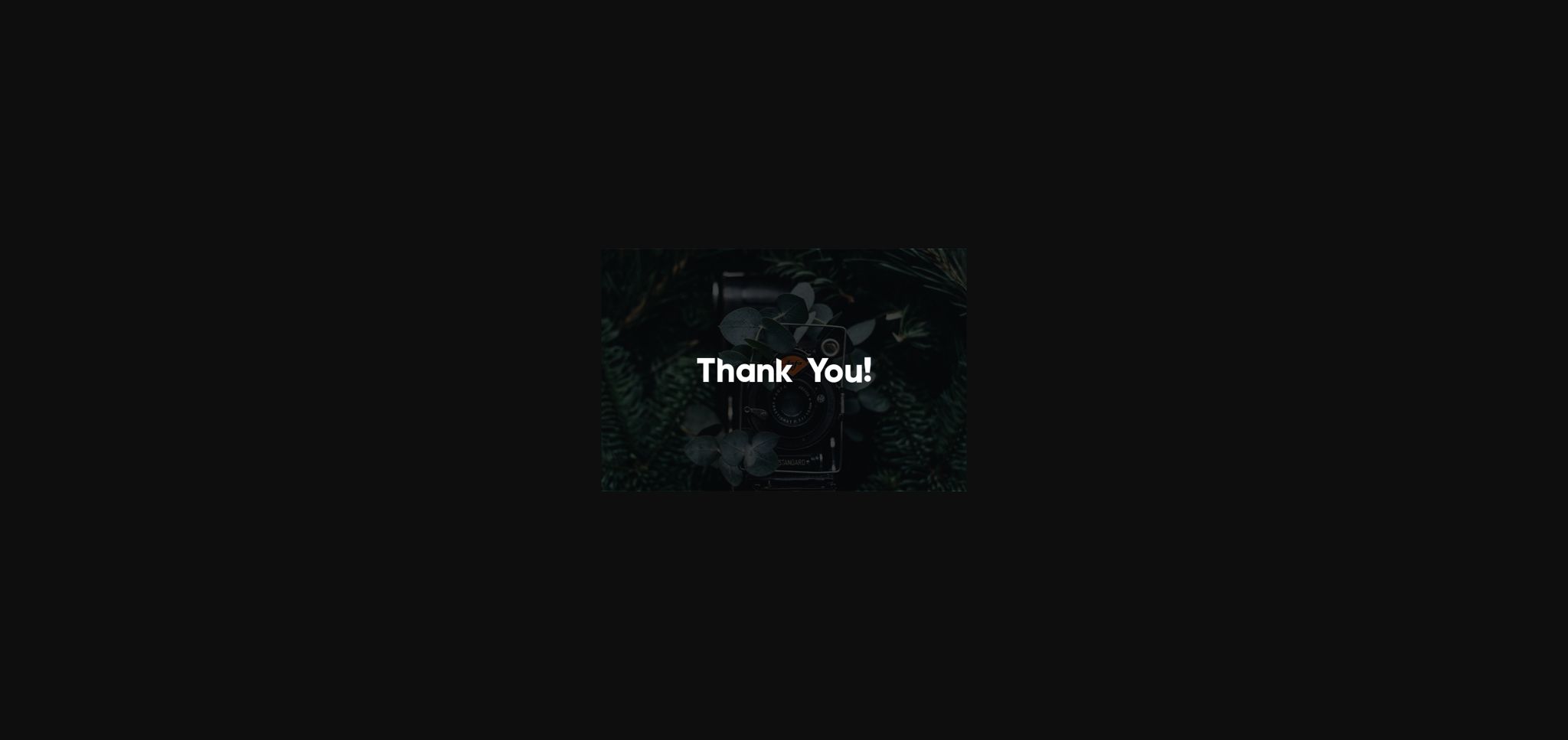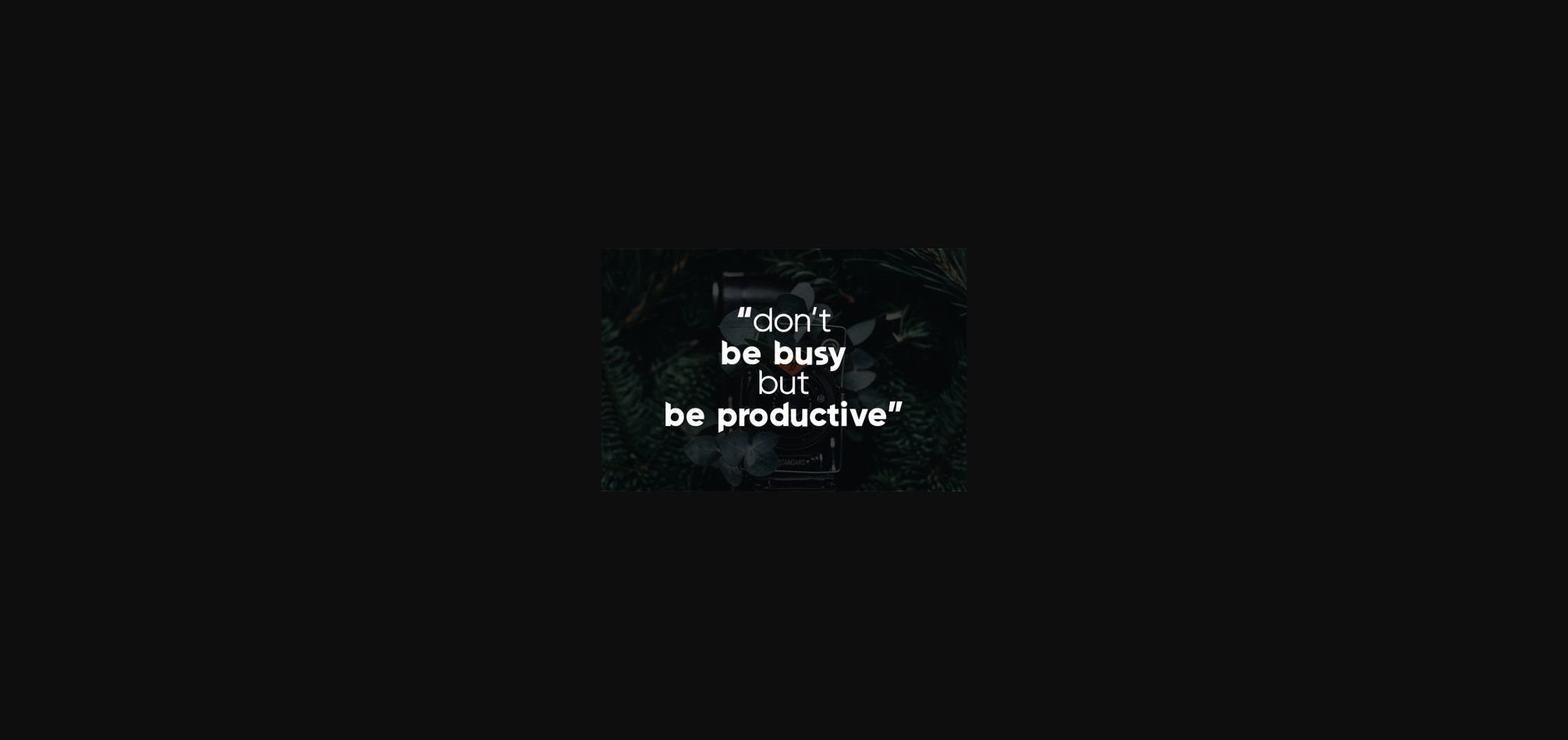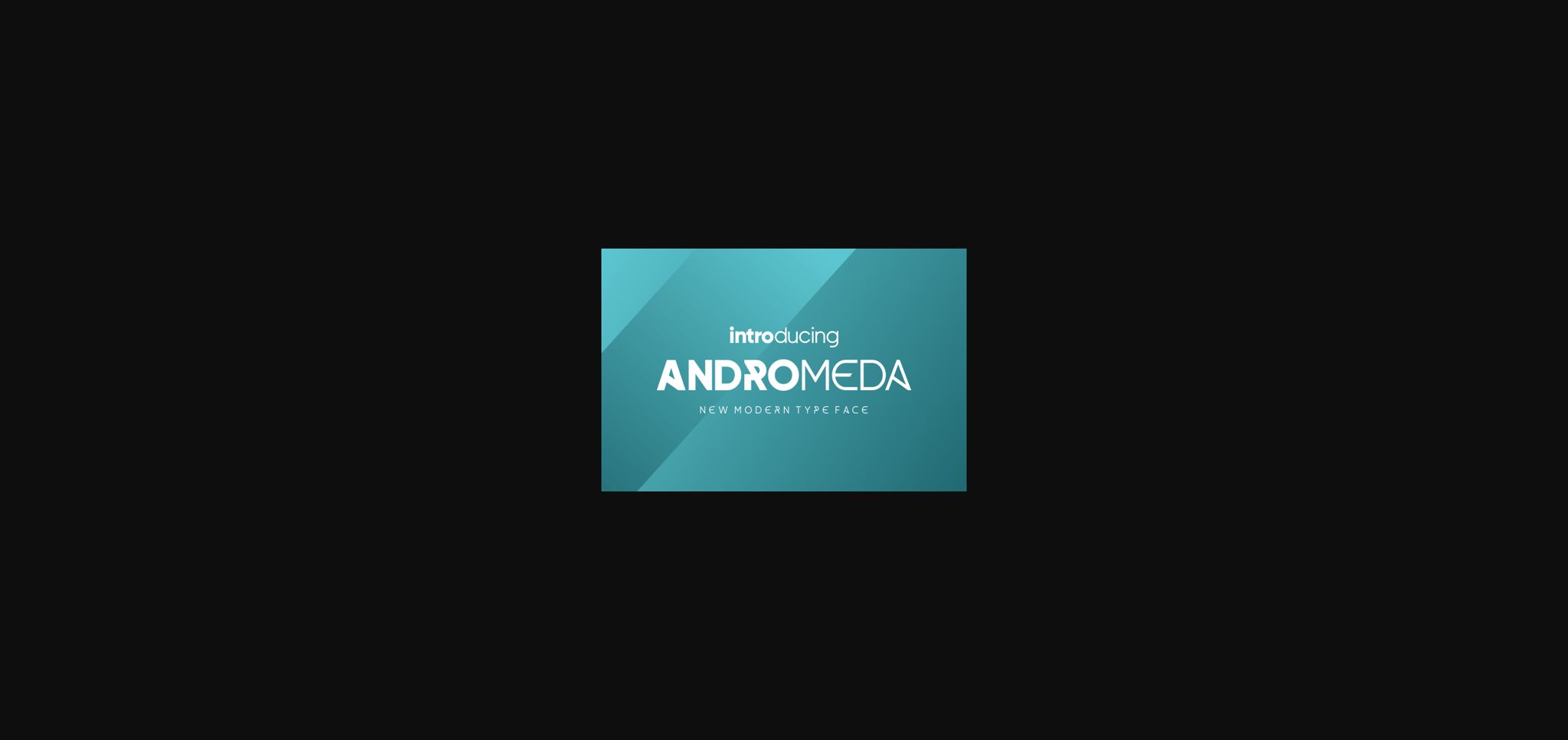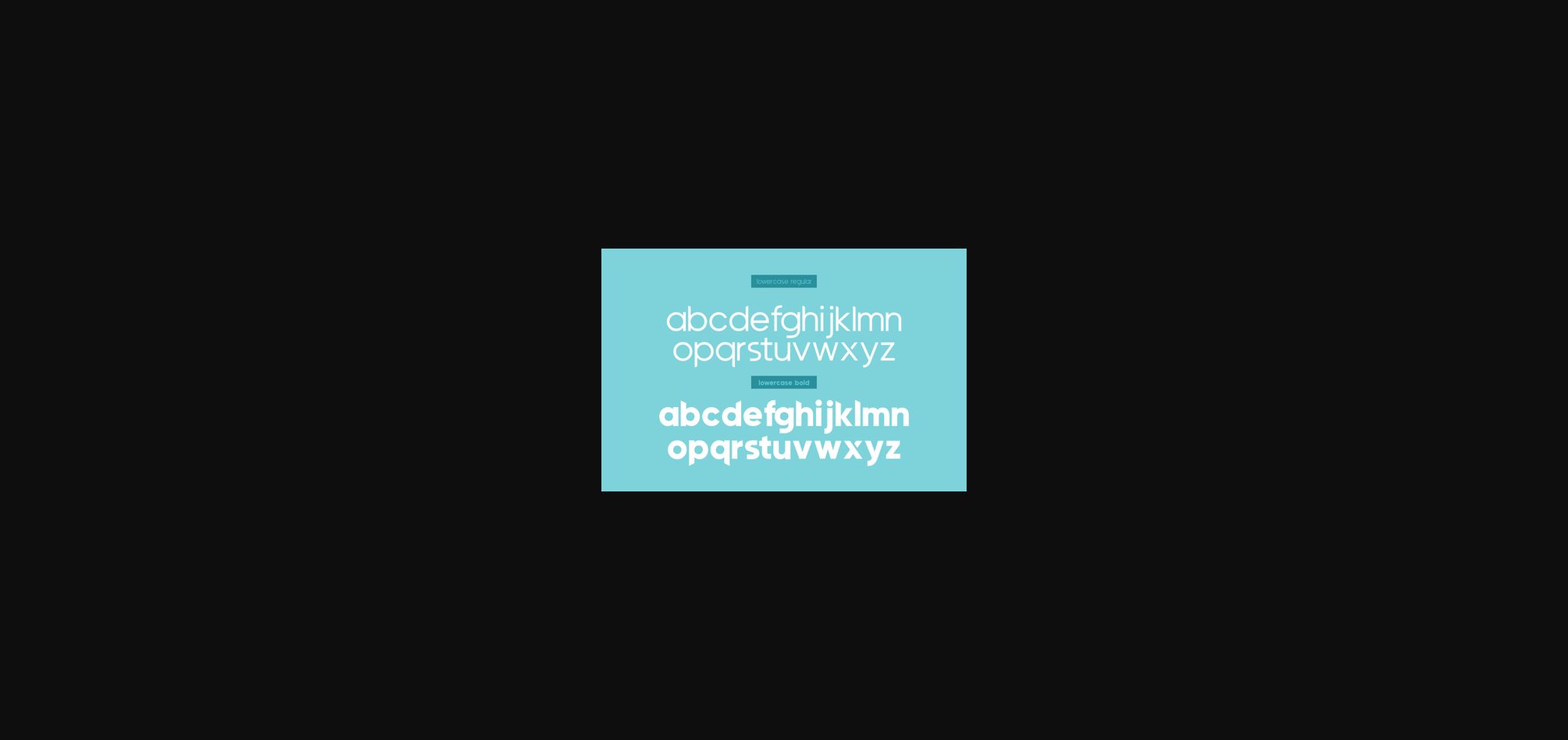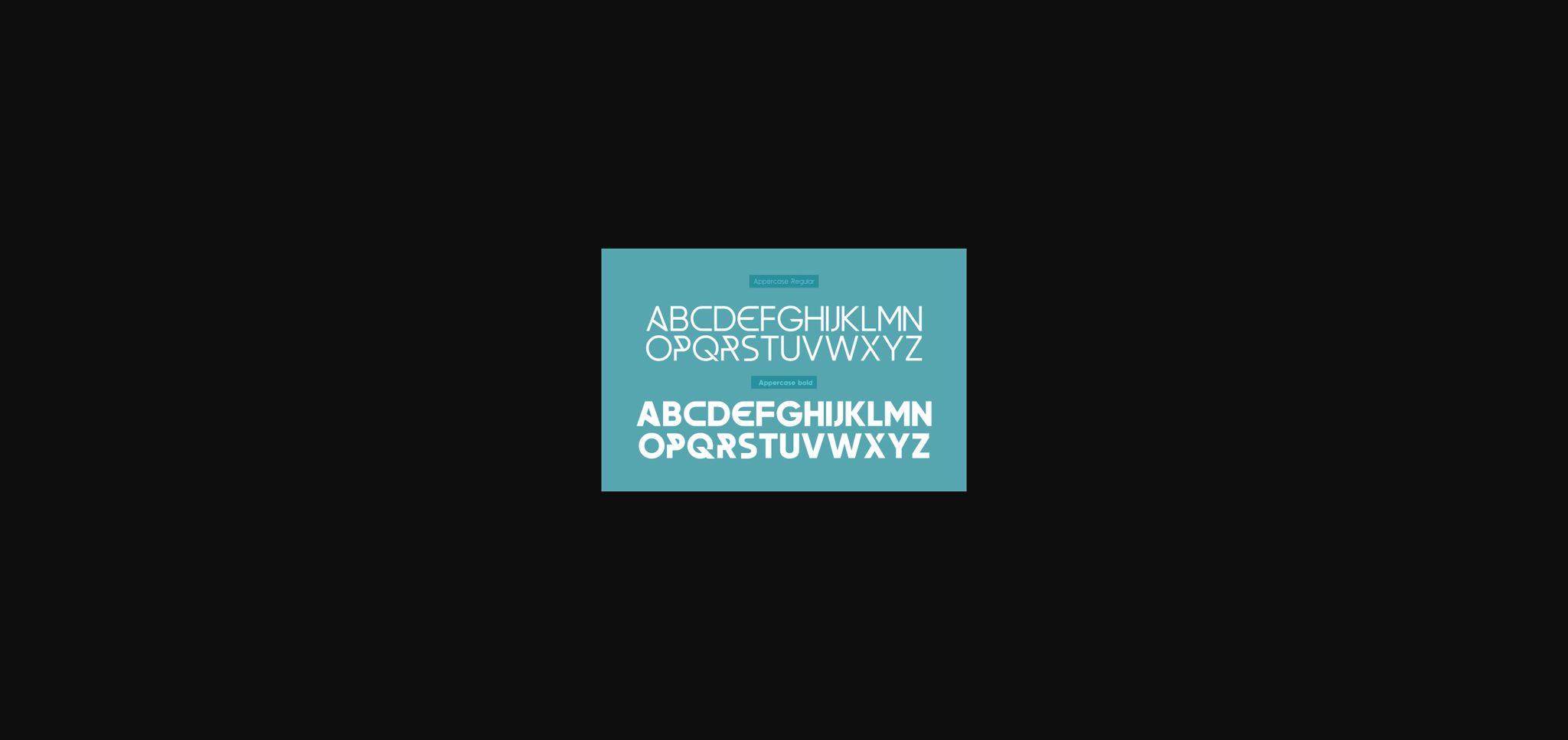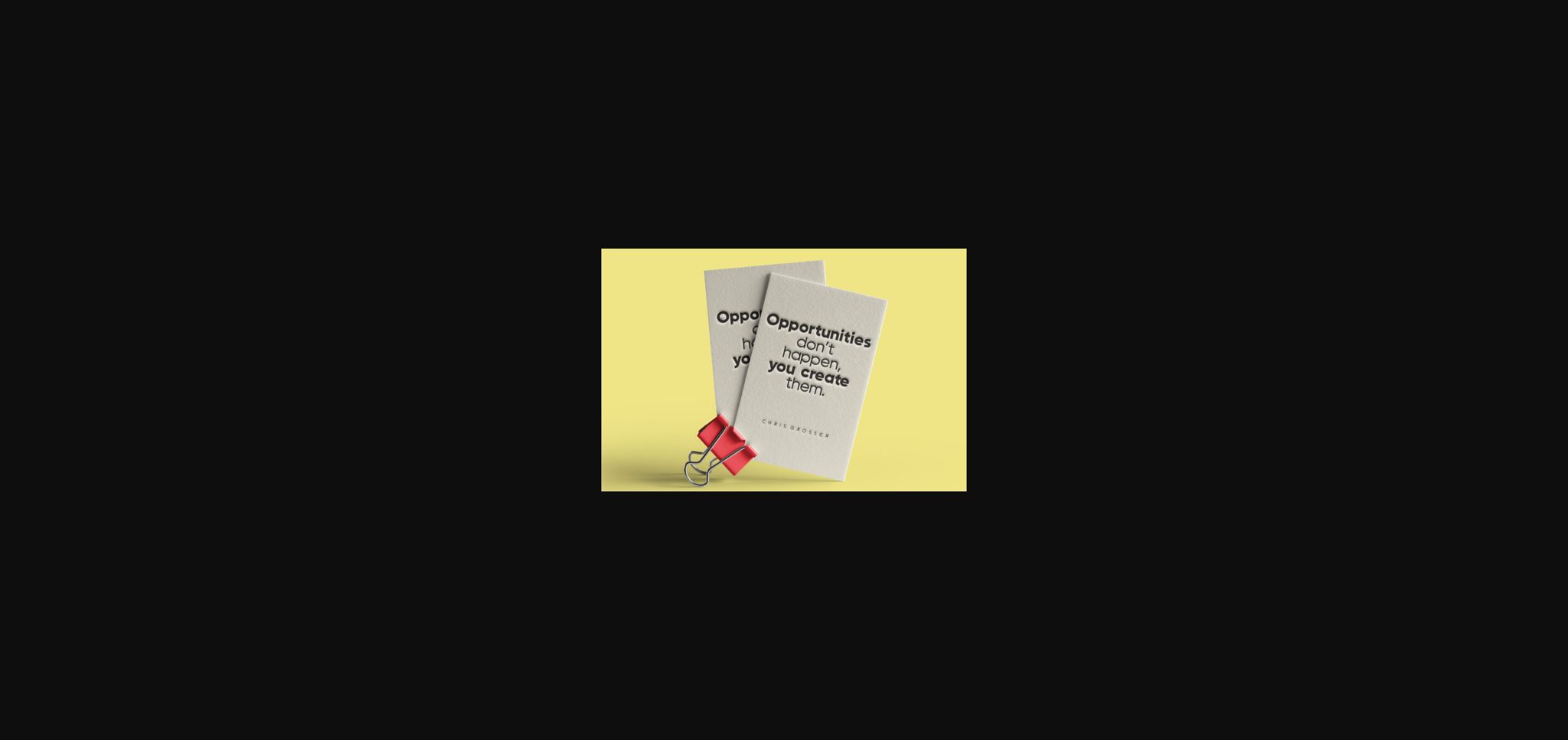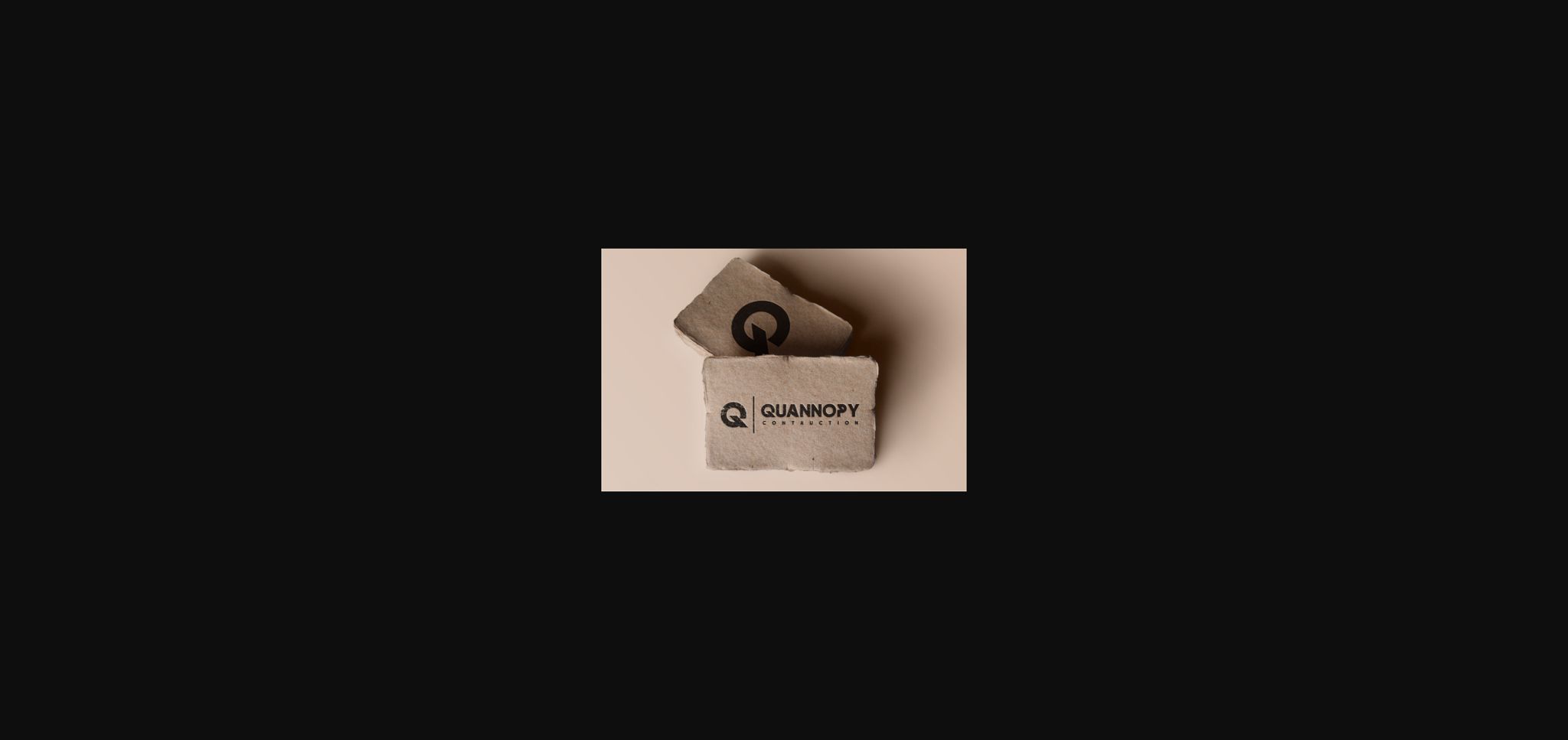
HomeSans Serif FontsAndromeda Font Sans Serif Fonts Andromeda Font FacebookXPinterestWhatsApp 1 of 10 ... Andromeda Font Poster 2... Andromeda Font Poster 3... Andromeda Font Poster 4... Andromeda Font Poster 5... Andromeda Font Poster 6... Andromeda Font Poster 7... Andromeda Font Poster 8... Andromeda Font Poster 9... Andromeda Font Poster 10... About Andromeda Font Andromeda is a futuristic and elegant font coming in two distinct weights. This elegant sans serif font will deliver any message with confidence and style. DOWNLOAD NOW People also explored Ronthellisa Font Piglatte Font Spring Date Font Disamber Font Jasmine Rejova Font Minimalist Font Groovy Drip Font Betegoh Font 322 0 TagsAndromeda Font Previous articleBibold Outline FontNext articleCremona Font LEAVE A REPLY Cancel reply Comment: Please enter your comment! Name:* Please enter your name here Email:* You have entered an incorrect email address! Please enter your email address here Website: Save my name, email, and website in this browser for the next time I comment. Personal Use Free Covelia Personal Use Free Read more about this font Bukhari Script Personal Use Free Read more about this font Kitchen Blue Personal Use Free Read more about this font Alligator Font Personal Use Free Read more about this font BLOG 5 Fonts That Will Dominate Design Trends in 2026 5 Fonts for 2026 That Will Dominate Design Trends Typography plays a critical role in visual communication, and as we look ahead to 2026, it’s... Top 7 Google Fonts Alternatives for Faster and Privacy-Friendly Web Design (2025) Fonts That Capture the Spirit of New York City Free Fonts Risk: Why Free Fonts Can Be Dangerous for Designers